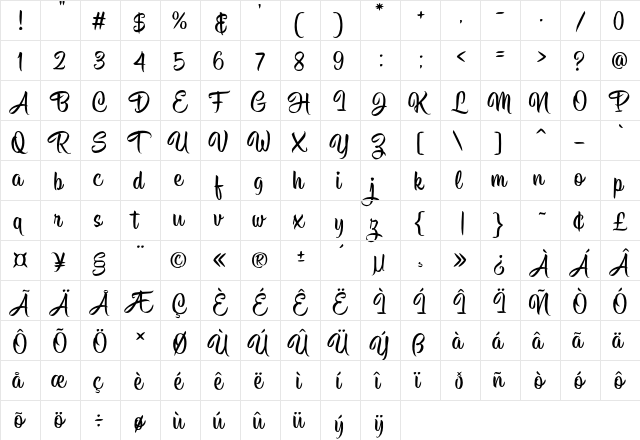
Hisyam Script Personal Use Regular
| Foundry | Hendra Pratama |
| Designer | Hendra Pratama |
Design Context for Hisyam Script Personal Use Typeface
Hisyam Script Personal Use brings a calligraphic fluidity to the page — its connecting strokes and expressive curves give it an unmistakably human quality.
Font Pairing: Combine Hisyam Script Personal Use with a simple geometric sans for maximum contrast — the tension between flowing curves and clean structure is a classic typographic pairing.
Pro Tip: Pair Hisyam Script Personal Use with a clean sans-serif for supporting text. The contrast between fluid script and geometric structure creates an elegant typographic hierarchy.